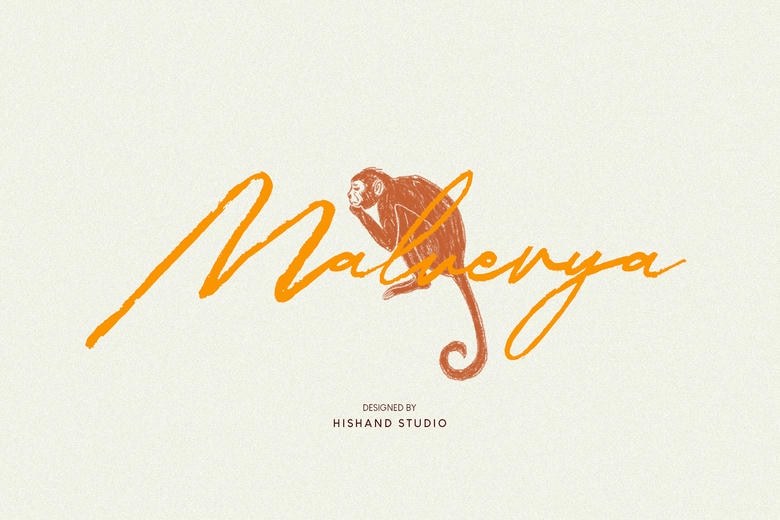
Malverya Font
Malaya Signature Brush Font is one of the most beautiful combinations of traditional refinement and contemporary style. It is distinguished by a flowing handwritten quality that recreates the careless quality of a pen and each character in the work is distinctively individual and artistic. Its signature font is described as having a graceful and connective letter and a pleasant irregularity to its physical appearance and organic feel.
Malway is ideal when it comes to designs which require the feel of handcrafted texture and finery. It works perfectly with branding, logos, wedding invitations, and greeting cards in which a small touch of warmth and personality are required. The slight differences in thickness and the lovely blemishes of the brush strokes appear more authentic and human, and your designs feel friendlier and more sincere. Malverya is the right typographical partner regardless of whether you want your fashion brand to appear luxurious or high-end, or you want your boutique to have a cozy, rustic appearance.
Malverya Signature Brush Font